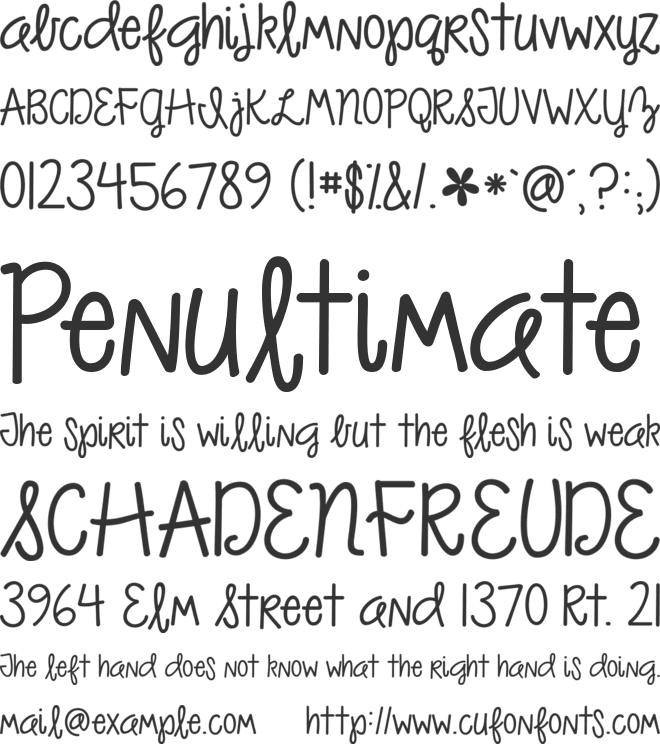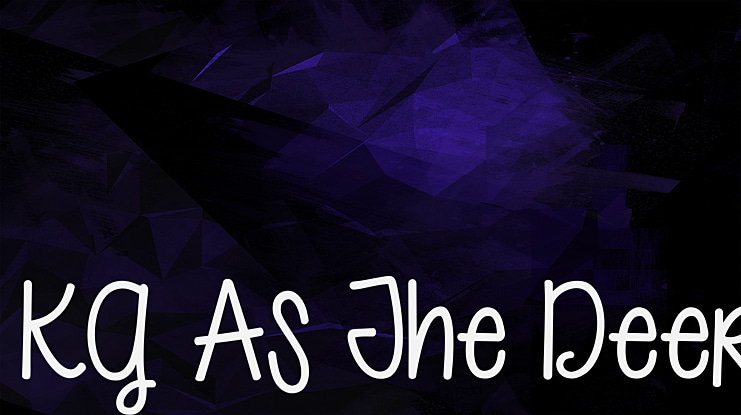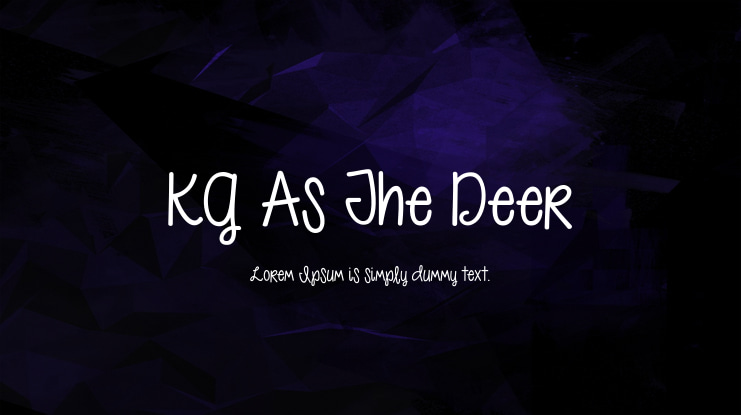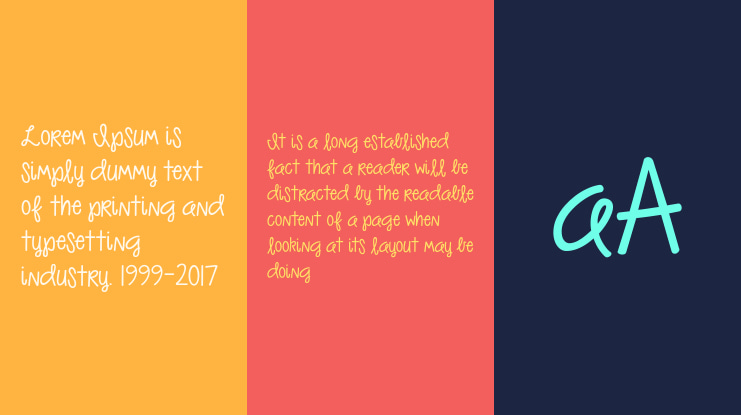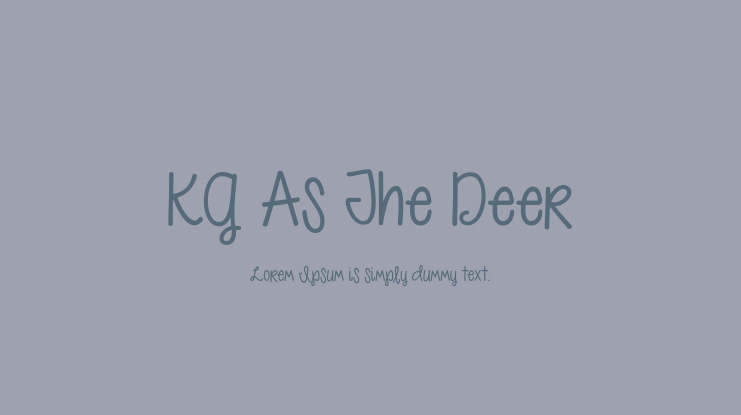
KG As The Deer Font
Kimberly Geswein
Fun handwriting-- perfect to add a uniquely handlettered look to your project. *~ Inspired by a recent trip to Northern Ireland and a friend, CBD.